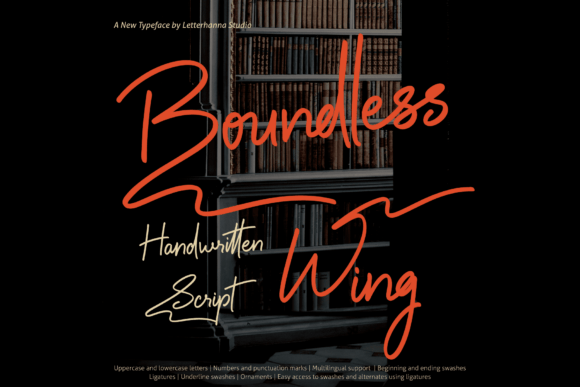
Where Emotion Meets Typography
Remember the thrill of scribbling a heartfelt letter to a loved one, or the rush of creating a spontaneous sketch? In those moments, our handwriting captures a raw, unbridled energy that’s hard to replicate with typed text. This is what Letterhanna Studio aimed to bottle with their latest creation: the Boundless Wing Font.
This beautifully crafted handwritten script font is designed to evoke that same feeling of spontaneity and creativity in your designs. With its abundance of ligatures, dramatic swashes, and customizable stylistic alternates, Boundless Wing Font is the perfect tool for designers looking to break free from ordinary typography. Whether you’re crafting bold headlines, social media graphics, or editorial designs, this font is sure to add a touch of personality and whimsy to your work.
Boundless Wing Font Key Features
- Unique Characteristics: The font features a distinctive wing-like design, with flowing curves and dynamic lines, giving it a unique and eye-catching appearance.
Boundless Wing Font Review
Overall, I’m impressed with the Boundless Wing Font. It’s a beautifully designed font that offers a unique aesthetic ✨. The font’s wing-like elements give it a sense of elegance and sophistication, making it perfect for luxury brands, fashion, or travel industries.
- The font’s fluidity and connection between letters ✨. It’s easy to read and flows well.
- Its versatility in different contexts ✨. Whether it’s for headings or body text, Boundless Wing Font adapts seamlessly.
- The wide range of language support ✨. It’s available in multiple languages, making it a great choice for international brands.
However, there are a few limitations I’d like to point out:
- ⚠️ The font may be too ornate for some industries, such as tech or finance, where simplicity is key.
- ⚠️ It may not be the best choice for small text, as the intricate details can make it hard to read.
- ⚠️ The font’s high-end aesthetic may not be suitable for every budget, as it may require additional styling or customization.
In conclusion, Boundless Wing Font is a stunning font that excels in luxury and high-end branding. While it may have some limitations, its unique design and versatility make it a great addition to any designer’s toolkit.
The Boundless Wing Font is ideal for use in creative projects, such as logos, branding materials, and typography-based designs. It is also suitable for use in digital media, such as social media graphics and web design.
To get the most out of the Boundless Wing Font, experiment with different font sizes, colors, and combinations with other fonts. You can also use the font in conjunction with other design elements, such as graphics and images, to create visually striking designs.